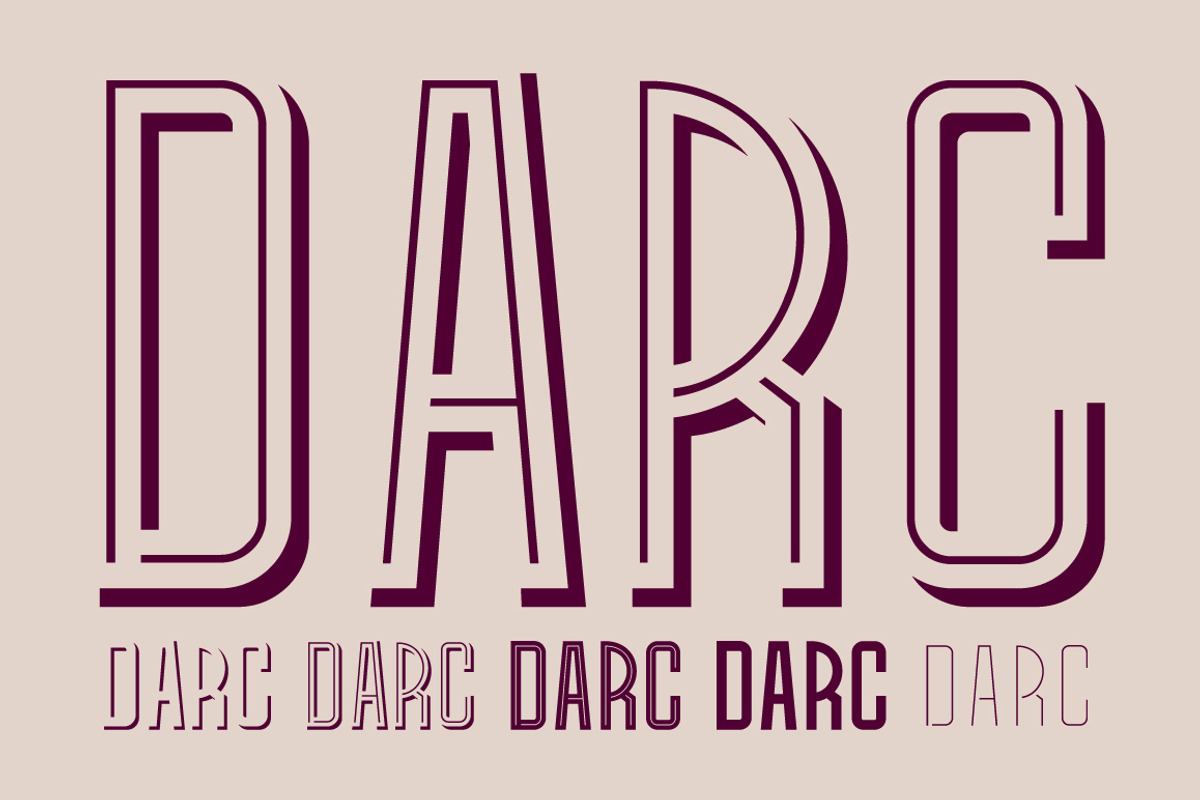
Add a modern, edgy touch to your designs with Darc Font Free Download. This sleek sans-serif typeface features clean, sharp lines and a minimalist style, making it perfect for logos, branding, posters, and contemporary digital or print projects.
Darc's geometric forms and crisp edges give it a bold, professional look, ideal for high-impact designs that need to stand out. It includes uppercase and lowercase letters, numerals, punctuation, and multilingual support, providing flexibility to experiment with various design layouts.
Perfect for clean, modern aesthetics that require a bold statement. For any commercial use, make sure to purchase the appropriate license. Download Darc Font Free Download today and bring sleek, contemporary typography to your creative work.